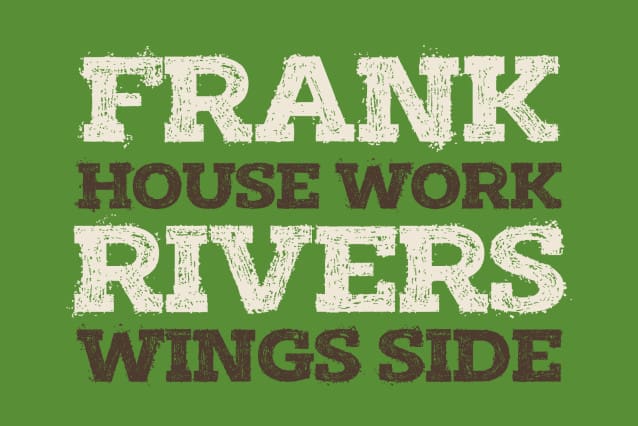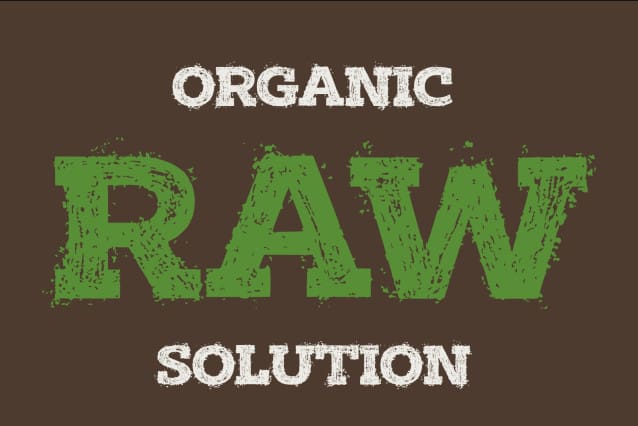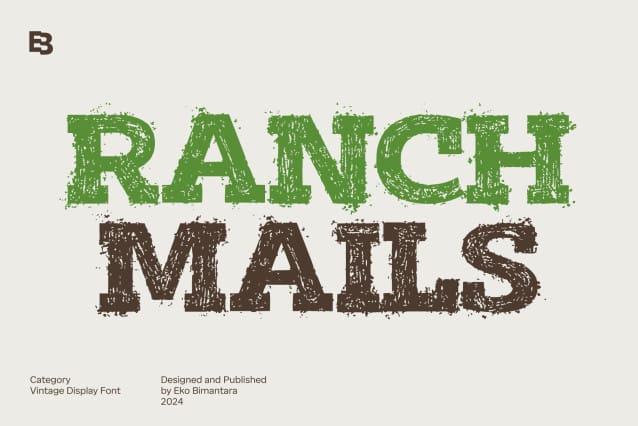
Ranch Mails Font
Ranch Mails Font is a bold, all-caps vintage display font characterized by its rough and raw aesthetic. Perfect for evoking a rustic, old-style charm, it fits themes related to food, product branding, and vintage design. Its rugged personality is ideal for large-size displays, titles, and headers, making it a great choice for brand identities, product packaging, and broad graphic design projects with a rustic or raw edge. Ranch Mails brings a timeless, rugged look to any creative layout or design.